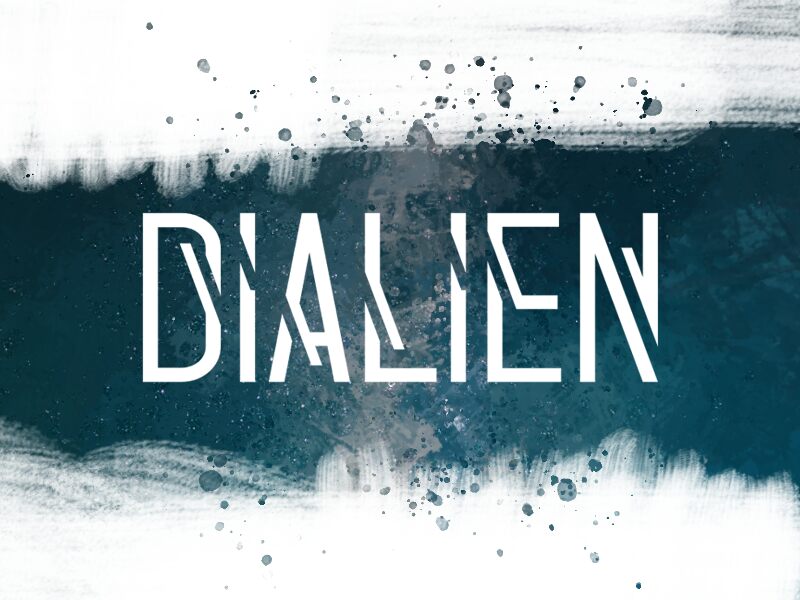
Dialien, the modern semi-light font designed by wep, is the perfect display typeface for projects that require a sleek and contemporary aesthetic. Its condensed width allows for efficient use of space while still maintaining legibility. With its clean lines and sharp edges, Dialien is ideal for branding materials, posters, and web graphics. Use it to add a touch of sophistication to your next project or to make a bold statement in your designs. Dialien's unique style will set you apart from the competition and leave a lasting impression on your audience.